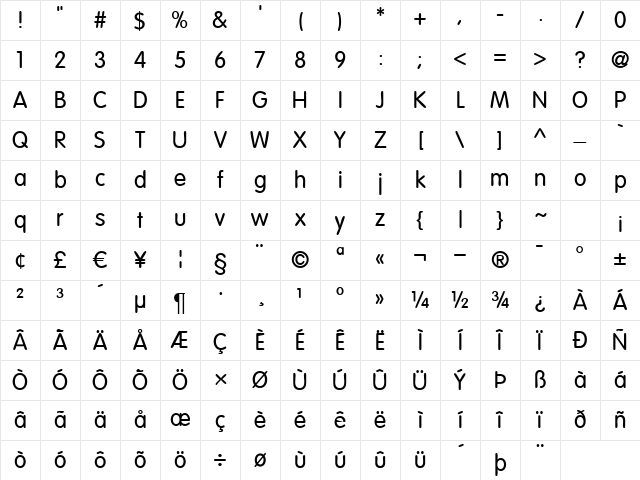
Vag-Light Regular Free Font
Vag-Light Regular
Design Context for Vag-Light
Vag-Light is a composed and adaptable typeface that performs quietly and consistently across a wide range of design contexts. Its slender proportions lend an understated elegance to any composition.